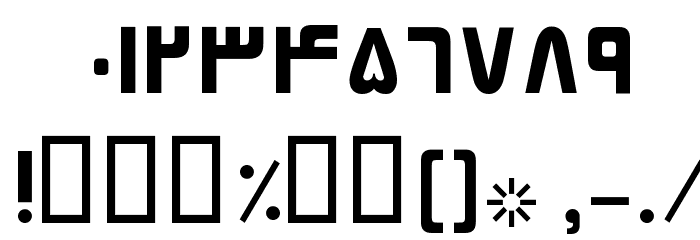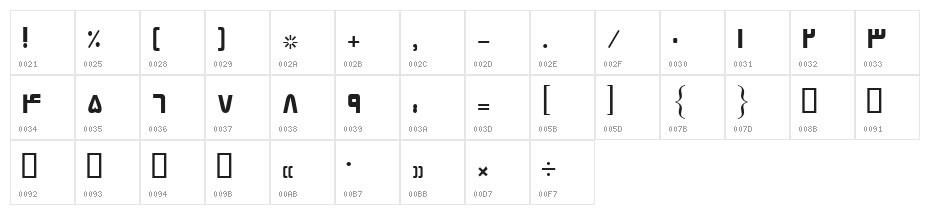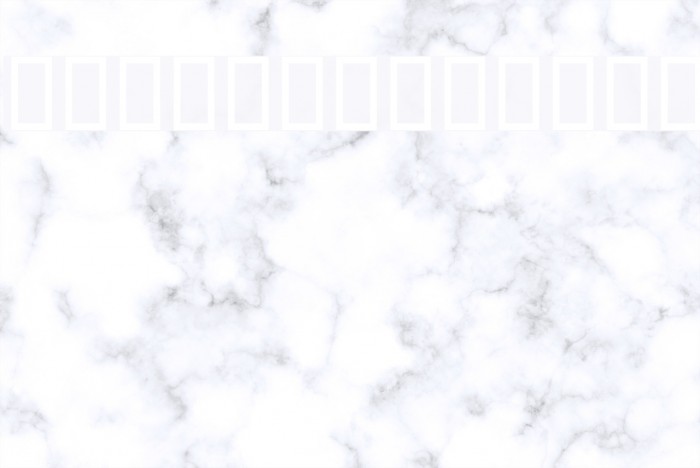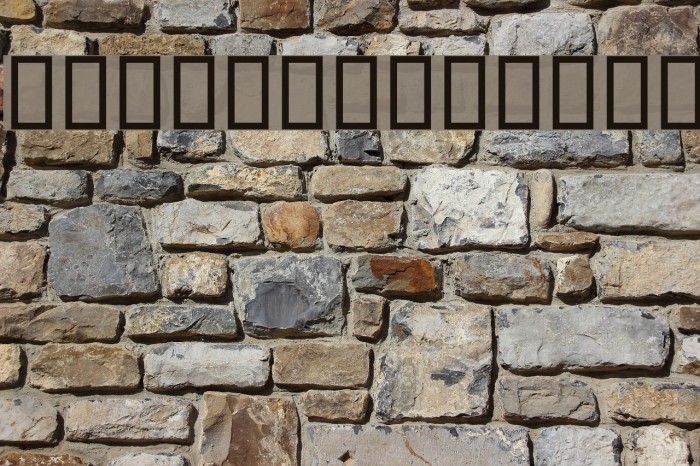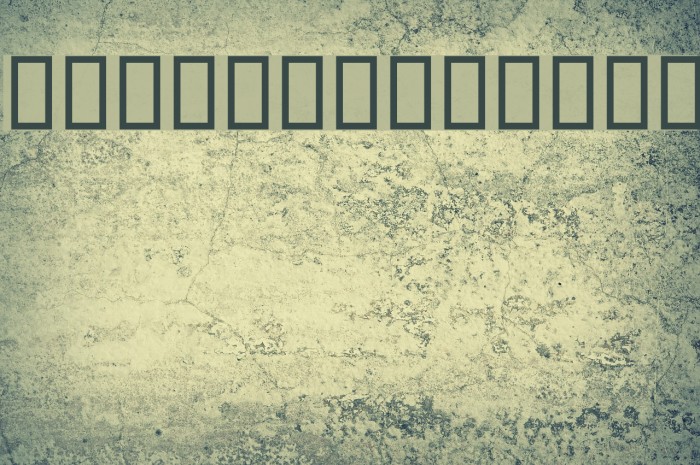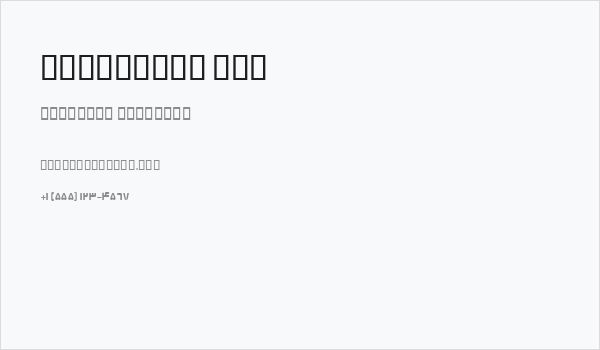
Rectangle III Font
Rectangle III Description
This font features a bold and geometric design, characterized by its block-like structure and uniform stroke width. The characters are constructed with a strong emphasis on straight lines and right angles, giving it a modern and industrial appearance. The numbers and special characters maintain the same boldness and geometric style, ensuring consistency across all glyphs. This font's design is highly legible and impactful, making it suitable for various applications where clarity and a strong visual presence are required.
| Proposed Projects | Ideal for branding, signage, posters, and any project requiring a strong, modern aesthetic. |